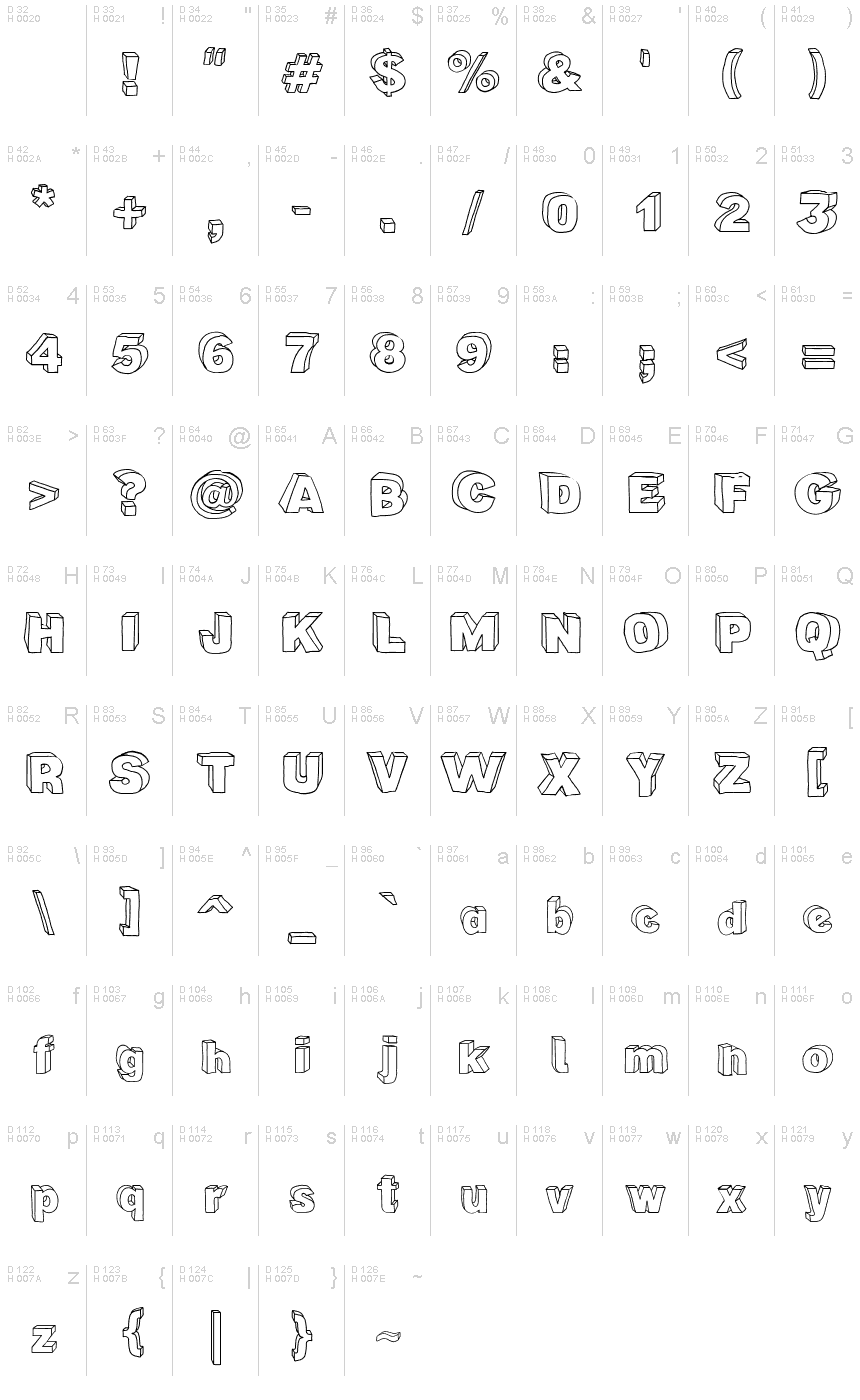
Cartoon Blocks
Cartoon Blocks is a bold and playful display font designed by Galdino Otten. With its unique 3D cartoon style, this font is perfect for a variety of projects. Its bold weight adds impact and attention-grabbing qualities to any design.
Use Cartoon Blocks to create eye-catching headlines for children's books, comic strips, or animated movie posters. This font's whimsical charm is also ideal for creating fun and vibrant logos for toy stores, game apps, or kids' entertainment websites. Let Cartoon Blocks bring your designs to life with its lively and energetic vibe!